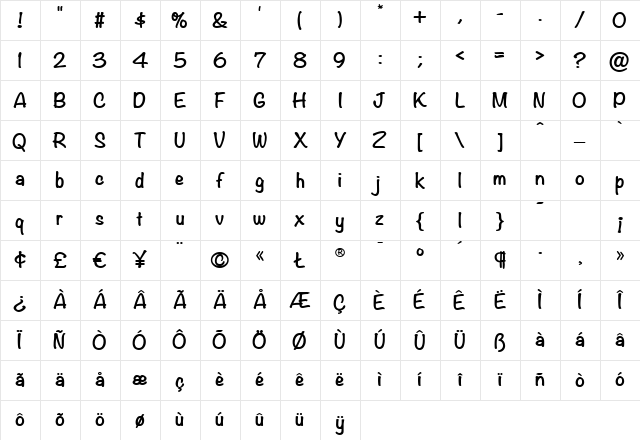
Tally Text Bold is a composed and adaptable typeface that performs quietly and consistently across a wide range of design contexts. Its bold stroke weight gives it real presence on the page.
Pro Tip: Use Tally Text Bold in both headline and body roles to test its range before committing to a single application.